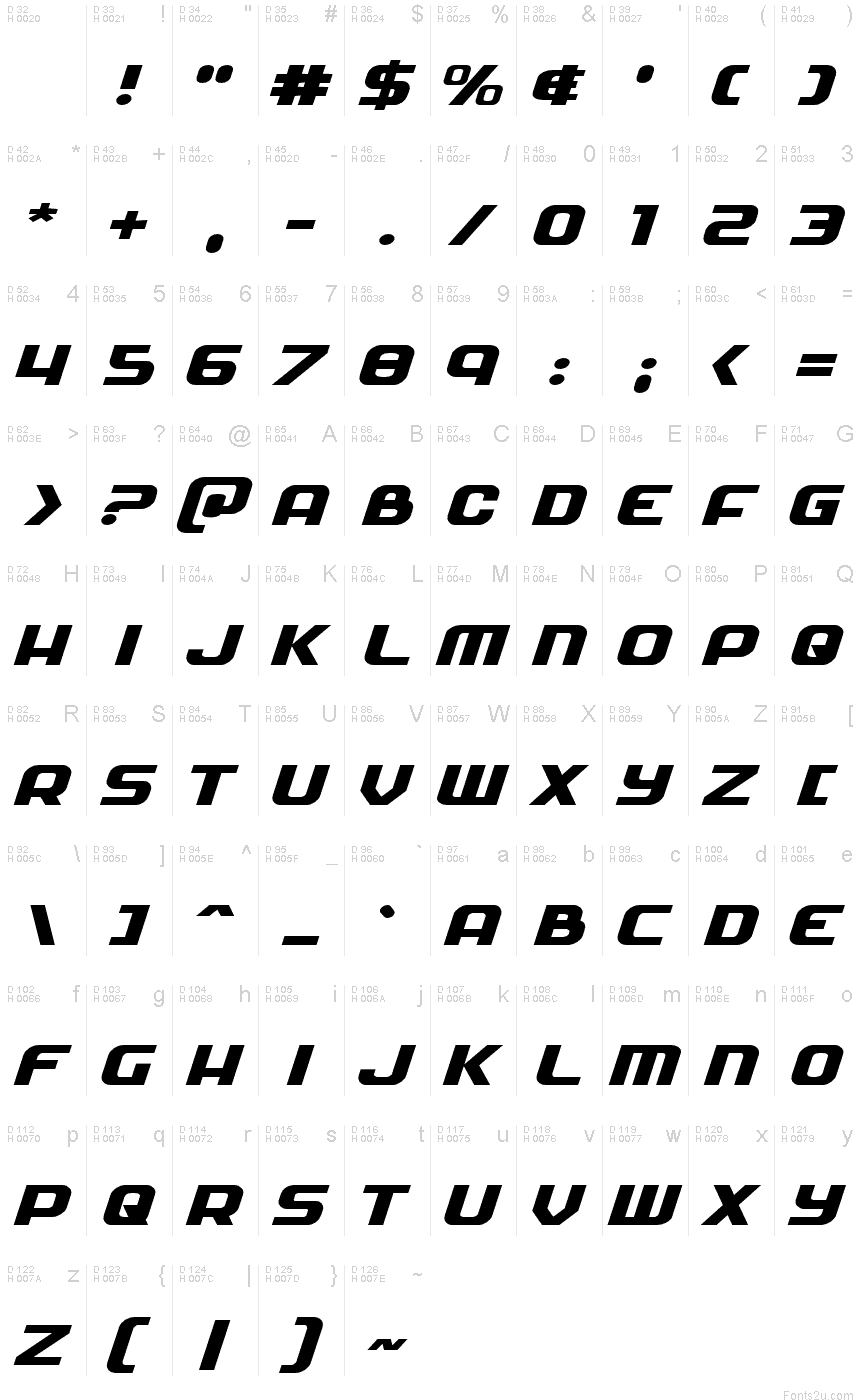
Soldier Expanded Italic by Daniel Zadorozny of Iconian Fonts is a free extended italic sans serif with the forceful profile of motorsport lettering. Hard diagonal cuts sharpen every broad, forward-leaning form.
Teams and fans of racing, esports, and action games are the clearest audience for this assertive design, especially in high-speed entertainment and competitive settings. Its rounded outer corners and dense joins give vehicle graphics, event posters, and game title screens a compact, machine-made look. In branding, the angular cuts can become a recognizable motif for performance gear or automotive products.
Soldier Expanded Italic